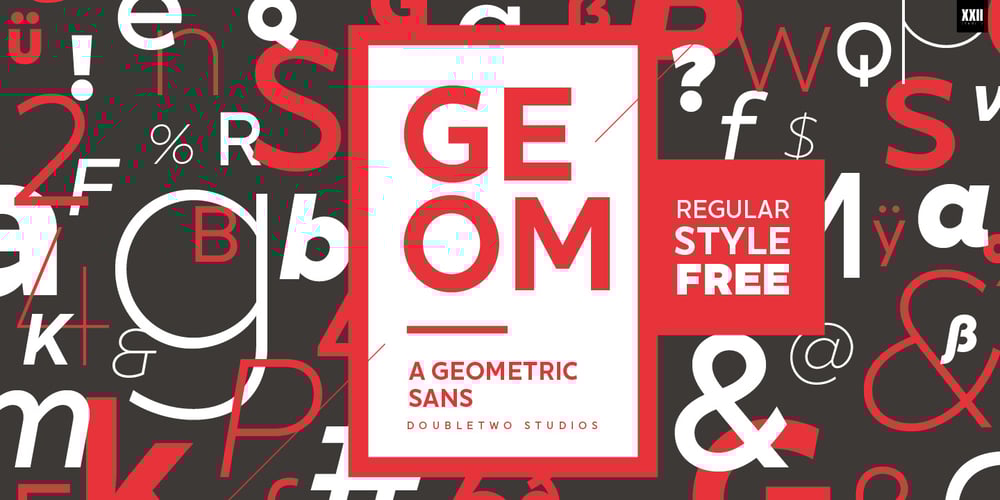
XXII Geom Font Family was designed by Lecter Johnson and published by Doubletwo Studios. XXII Geom contains 16 styles and family package options. XXII Geom and its slab-serific XXII Geom Slab are modern geometric type systems designed with focus on functionality & legibility and with an eye on the old masters. Their well balanced low contrast letter shapes come with a tall x-height. The italics are designed with a little more curvy approach what brings up a different individual character fitting perfect to the straighter forms of the uprights. With its large range of Opentype features it is designed to fulfill the needs your content deserves (Smallcaps, Case Sensitives, Ligatures…) as well as serving your individual taste (Stylistic alternates & Sets). More information on Behance.